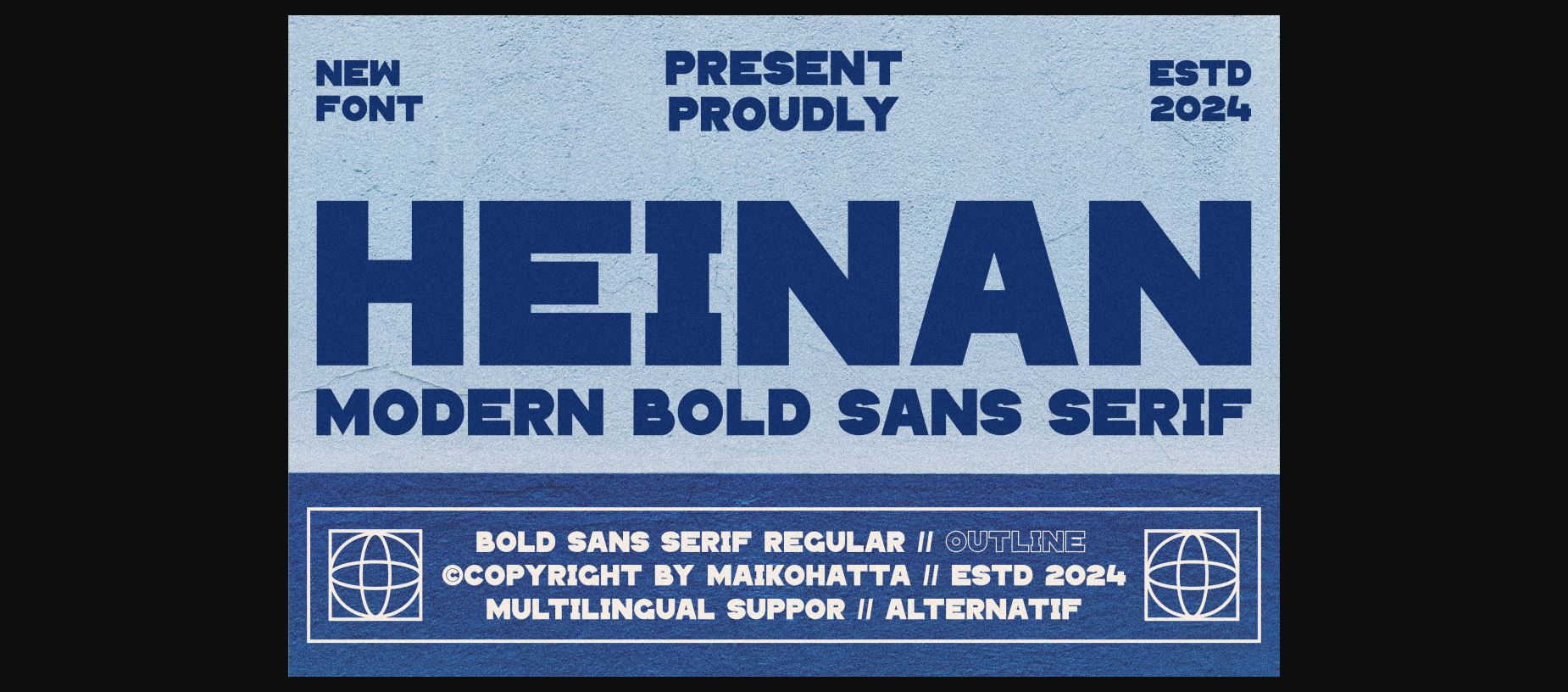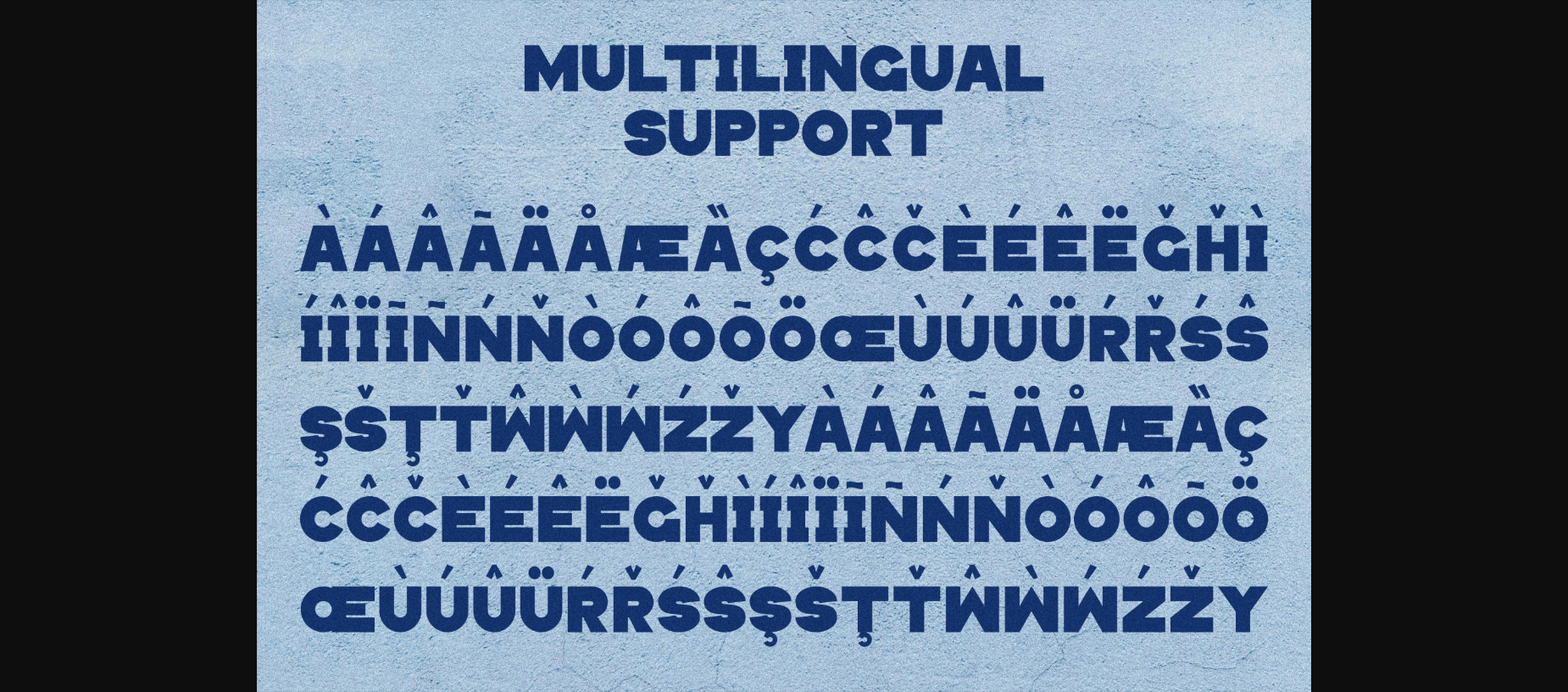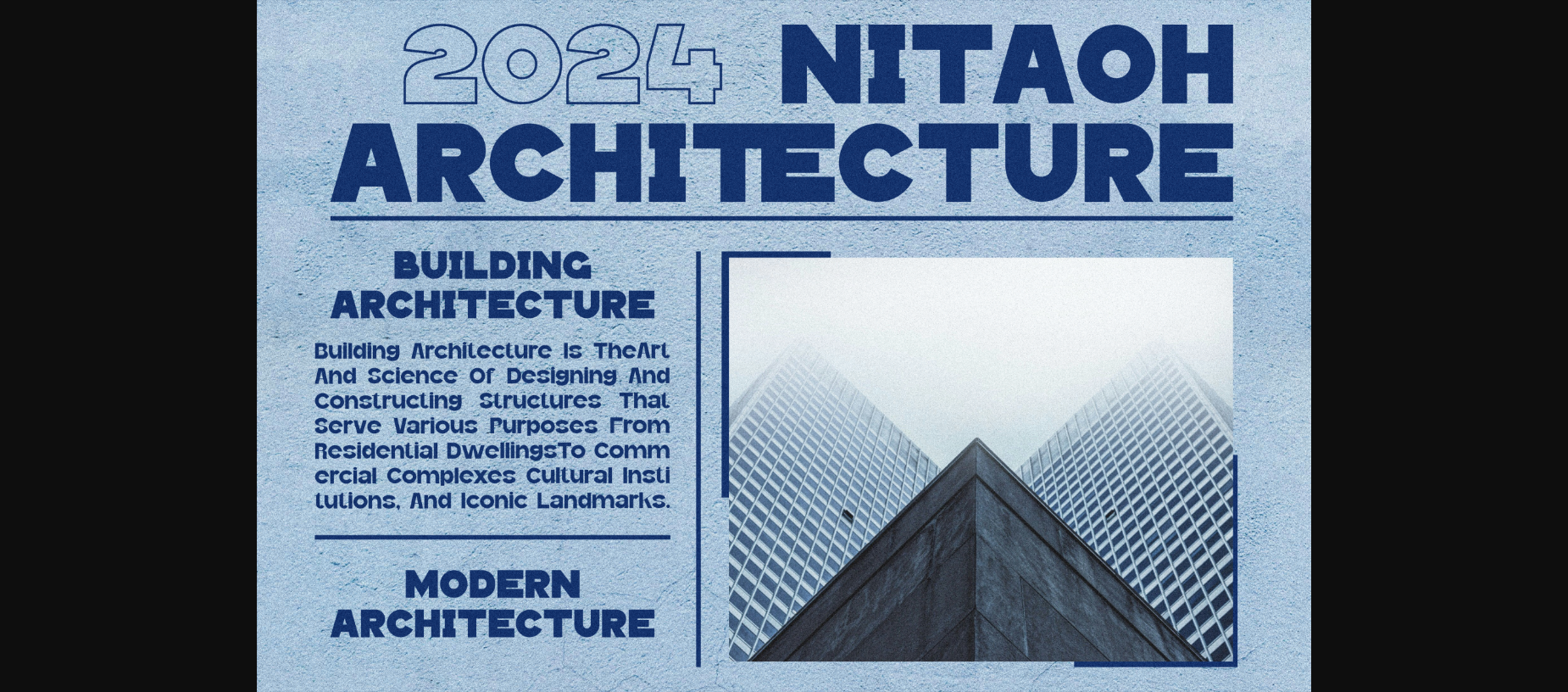
About Heinan Font
Introducing our new product **Heinan** – Modern Bold Sans Serif
**Heinan** Modern Font is a bold and authentic display font. The font is suitable for any branding project like logo, Template Design, esport, and many more. outstanding in a wide range of contexts.